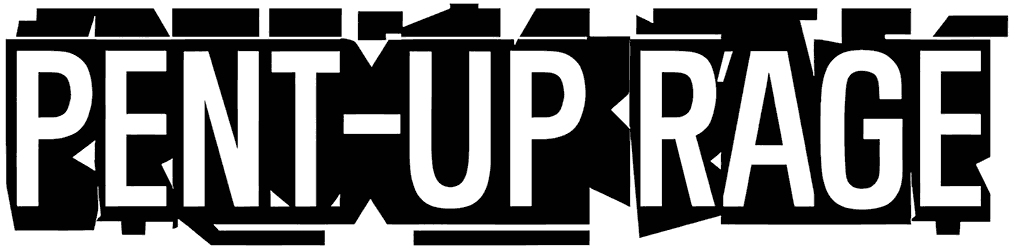
Pent-Up Rage Font
There is nothing more tempting than a modern destroy font, the same as the Pent-Up Rage that comes with a futuristic and unique style for a graphic artist who wants to design high-end editorial projects.
This all-caps punk font can level up all of your graphic content, including social media posts, digital banners, graffiti, stickers, and video game brochures. If you want to establish a sense of jauntiness, vitality, or tenderness in your artwork, this font would be ideal.